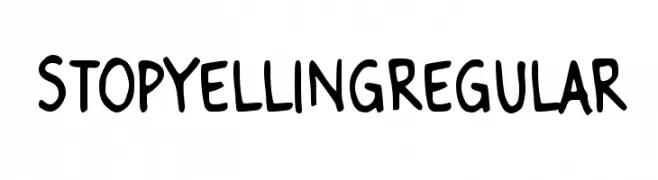
A bold, dripping font ideal for horror and spooky themes.
( =spark_01= )
An eerie, irregular font with elongated letterforms, perfect for horror themes.
( Aspek hndz - www.behance.net/Aspek )
A bold, gothic-inspired font with sharp, angular edges and dramatic serifs.
( Cat Neligan )
A festive, decorative font featuring Christmas-themed elements within each character.
( Cat.B - Agathe M.Joyce - www.foundmyfont.com )
An ornate script font with festive swirls and a textured effect.
( Chloe Clark - recklessweeknights.tumblr.com )
A playful, handwritten-style font with a casual and friendly appearance.
( Fadhil Aqsa - creativemarket.com/Meutuwah )
An elegant, cursive font with flowing, handwritten style.
( Hanoded - David Kerkhoff - www.hanodedfonts.com )
A bold, playful font with a hand-painted, artistic style.